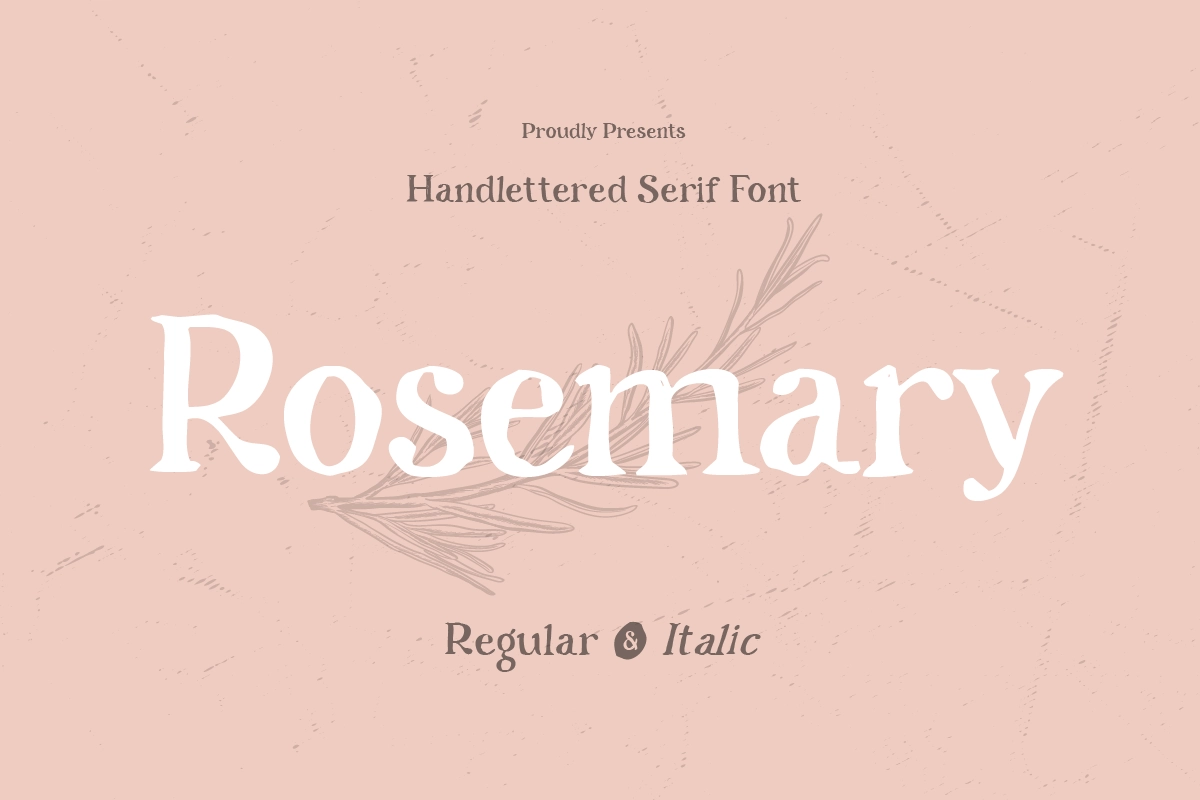
September 2026 Design Ideas, Holidays, and Font Inspiration
September 2026 is a calm and purposeful month for seasonal design, offering valuable opportunities for graphic designers, brand teams, and content creators to create clean, structured, and message-driven campaigns. With key moments like International Literacy Day, World Tourism Day, and the back-to-school season, September presents a focused creative range, from educational and typography-led visuals to editorial storytelling and travel-inspired content, making it an ideal time to explore refined typography, balanced layouts, and soft, neutral color palettes that feel clear, thoughtful, and visually cohesive.
September marks a clear shift in tone. After the warmth and expressiveness of mid-year, this month introduces a calmer, more focused, and transitional atmosphere. It feels like a reset into productivity, structure, and forward planning. For brands, creative teams, and content creators, September 2026 is a strong moment to build campaigns that feel intentional, clean, and purpose-driven. Some of the most relevant design moments to pay attention to are International Literacy Day on 8 September 2026, World Tourism Day on 27 September 2026, and the global back-to-school season that shapes visual trends across industries.
For designers, this month leans toward a minimal and editorial visual spectrum. September moves away from high-energy visuals and shifts into clarity, readability, and storytelling. That is what makes it powerful. One campaign can feel educational and structured, while another can feel calm, aesthetic, and lifestyle-focused. If you are building seasonal content, September gives you space to create visuals that feel thoughtful, organized, and visually balanced.
Why September?
September often acts as a transition phase. It signals a return to routine, learning, and productivity after the more relaxed mid-year months. This makes it a strong opportunity for brands to realign their visual identity and focus on clarity, message, and function.
From a design perspective, September supports structured layouts, typography-led visuals, and editorial compositions. It works well for educational content, brand storytelling, travel campaigns, and clean promotional materials. This is a month where design does not need to shout to be effective. Instead, it communicates through balance, hierarchy, and intentional spacing.
For lifestyle, education, travel, and creative brands, September is especially valuable because it feels focused and grounded. There is more room to emphasize readability, build narrative-driven visuals, and create content that feels informative without being overwhelming. Typography becomes more refined, supporting both clarity and aesthetic quality.
Best Alternative Fonts For September
Normal - Humanist Modern Sans Serif Font
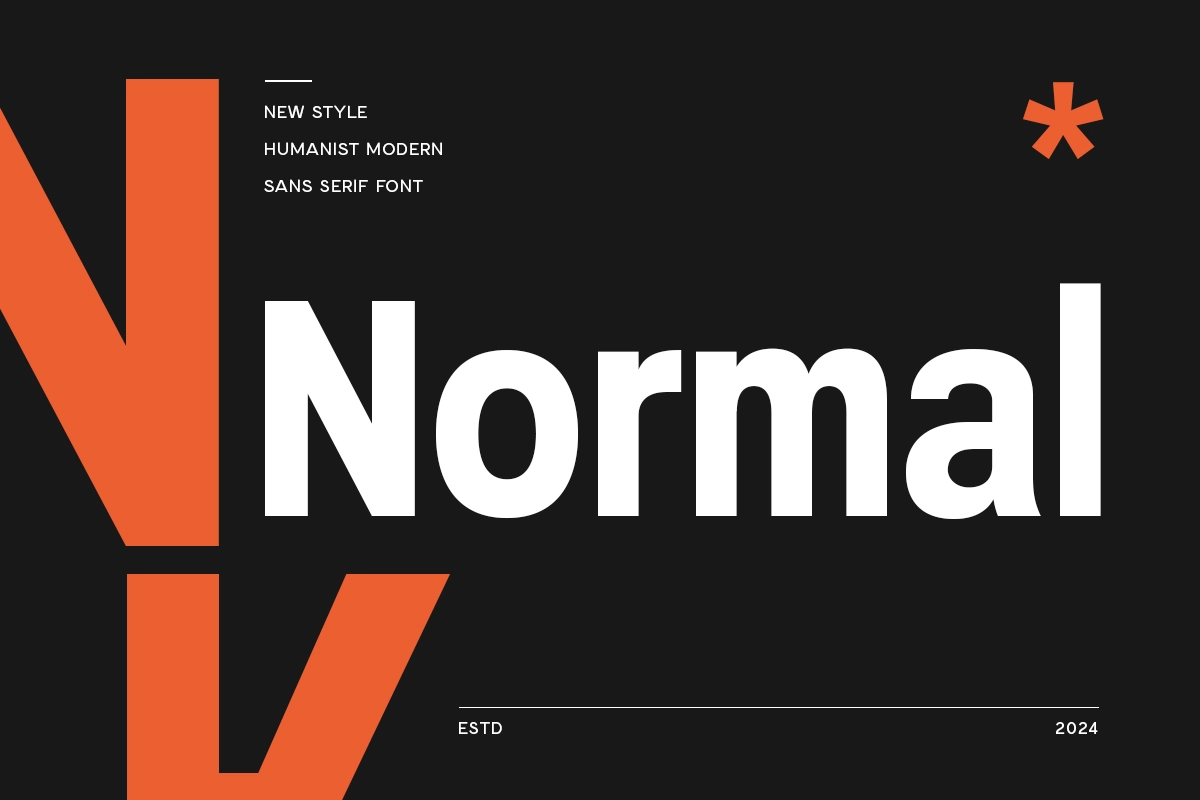
Normal is a humanist modern sans serif font designed to deliver clarity, readability, and a natural visual flow. With its balanced proportions and subtle organic touch, this typeface works perfectly for educational content, structured layouts, and typography-led designs. It reflects September’s focus on organization and clarity while maintaining a friendly and approachable tone.
Naomi - Elegant Branding Serif Font
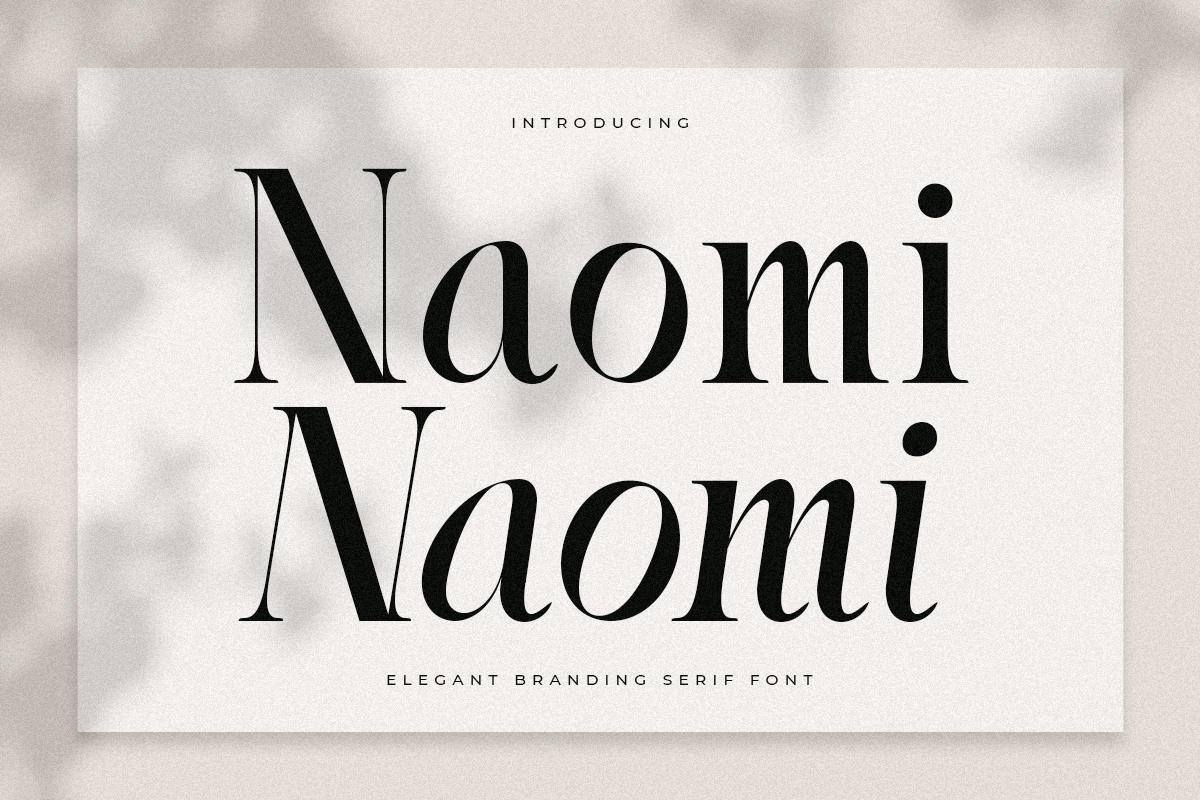
Naomi is an elegant branding serif font crafted to bring sophistication and refinement into your designs. With its graceful contrast and polished structure, this typeface is ideal for editorial layouts, blog visuals, and storytelling content. It creates a calm and thoughtful visual presence that aligns with September’s composed and intentional atmosphere.
Parisian - Luxury Beauty Elegant Font
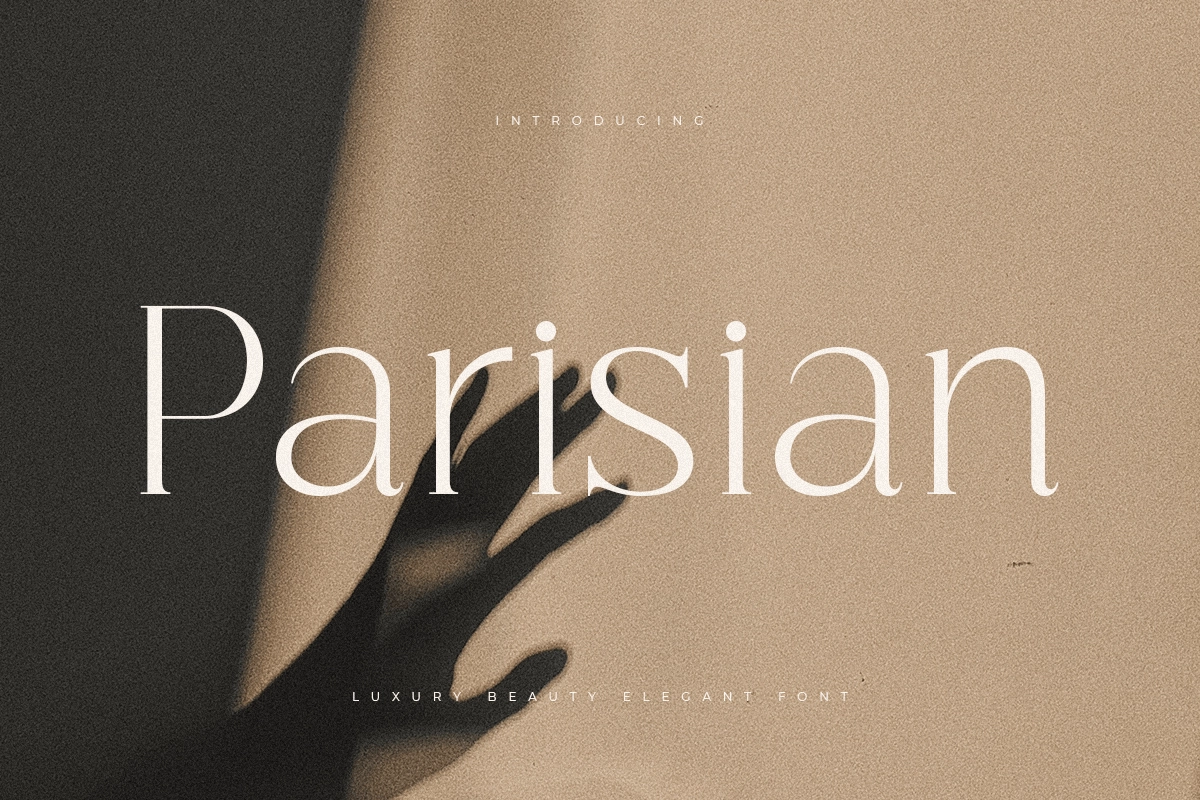
Parisian is a luxury beauty elegant font designed to deliver a soft yet premium visual identity. Its refined letterforms and stylish details make it suitable for lifestyle branding, beauty campaigns, and curated social media visuals. This typeface adds a sense of elegance while maintaining the clean and controlled tone that defines September design.
Rosemary - Handlettered Serif Font
Rosemary is a handlettered serif font that combines personal expression with structured elegance. With its unique strokes and handcrafted feel, this typeface is perfect for quotes, literacy campaigns, and human-centered storytelling. It adds warmth and personality without disrupting the clarity and balance of the overall design.
Abigail - Unique Ligature Font
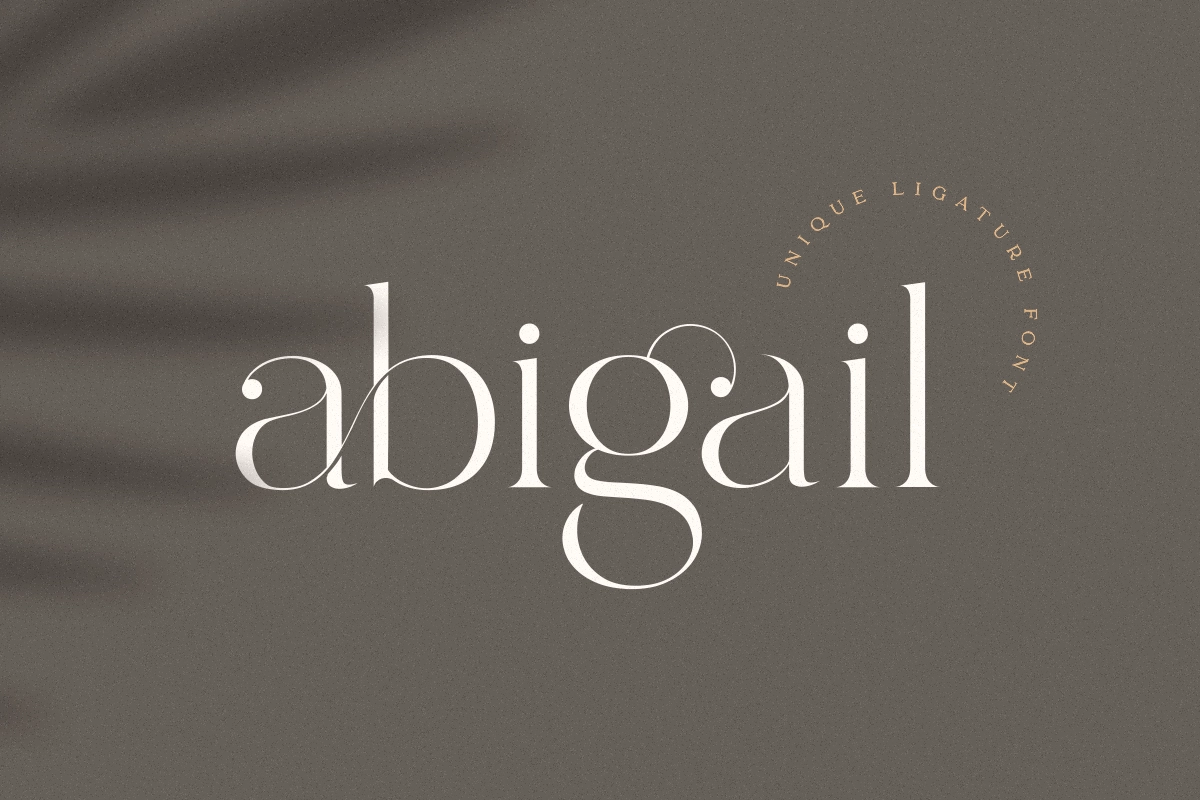
Abigail is a unique ligature font designed to create a distinctive and stylish visual identity. With its creative letter connections and modern elegance, this typeface works well for branding, headlines, and aesthetic content. It provides visual interest while still fitting within September’s refined and minimal direction.
FAQ
Q: What are the best September design themes for 2026?
A: The strongest September design themes for 2026 include educational and knowledge-based visuals for International Literacy Day on 8 September 2026, travel and exploration content for World Tourism Day on 27 September 2026, and structured, minimal visuals inspired by the back-to-school season. These themes emphasize clarity, storytelling, and purpose.
For designers, that means September is not about excess. It is about precision. If you approach it with thoughtful typography, clean composition, and a clear message, it can become one of the most refined and effective moments in the design calendar.